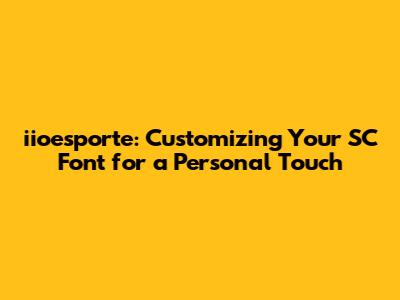
- Hierarchy: This refers to the way you organize your text to guide the reader's eye. Think of headings, subheadings, and body text. Different font styles and sizes create a visual hierarchy that makes content easy to digest.
- Readability: Can people easily read your text? Factors like font choice, size, and spacing all influence readability.
- Brand Consistency: If you're using iioesporte for your brand, your font choices should align with your brand's overall style.
- Explore the Available Fonts: Once you’re in the font settings, take a look at the fonts that are pre-installed. iioesporte often offers a range of fonts, from classic sans-serifs and serifs to more modern, unique options. Check how these fonts look by testing them on sample text. Consider your needs and brand to determine if you want to use them or get some custom ones.
- Choosing Your Fonts: The ideal font depends on your brand's goals. Do you want to project a professional image? A classic serif might be ideal. Are you trying to be seen as friendly and approachable? A clean sans-serif could do the trick. A bold, modern font can capture attention. When choosing, consider the font's readability at different sizes and its overall feel. Remember the rule: keep it consistent with your brand identity.
- Font Customization: Most platforms let you customize several aspects of your fonts. You may adjust:
- Font Size: Adjust the size to create a clear visual hierarchy.
- Font Weight: Try different weights (light, regular, bold) to add emphasis.
- Font Color: Make sure your colors are both readable and fit your brand.
- Spacing: Line spacing and letter spacing can impact readability.
- Preview and Test: Before you save your changes, always preview and test. See how the font looks on different parts of the platform and across multiple devices. A great font on your desktop may look terrible on a mobile device. Ensure that your design is readable and looks great everywhere.
- Readability Problems: A font might look great at one size but be difficult to read at another. Experiment with different sizes and weights to find what works best. Ensure enough contrast between the text and background for improved readability. Test your design on different devices.
- Font Conflicts: Sometimes, the platform's CSS or code conflicts with your font settings. Try using the browser's developer tools to inspect the elements and check for conflicting styles. Check the platform's support pages or forum for advice. Often the solution is simply to adjust the font settings a bit.
- Performance Issues: Complex fonts or too many font variations can slow down loading times. Be mindful of how many fonts you’re using and try to optimize your design. Optimize images and other media to balance the loading speeds.
- CSS Customization: If iioesporte offers CSS customization, you can fine-tune your font styles. This lets you add more control over the appearance of your fonts. Use CSS to change the font size, weight, color, and spacing. Use CSS for custom styling of specific text elements, like headings, paragraphs, and buttons. This level of control allows you to create highly tailored designs.
- Font Pairing: Choosing complementary fonts can dramatically improve your design. Use a font pairing tool to find combinations that match well. Ensure that the fonts work well together. Keep it simple and don't overwhelm the reader with too many font styles. Limit the number of fonts you use in your designs to maintain consistency.
- Responsive Design: Ensure your fonts look good on all devices. Use responsive design techniques to adjust font sizes and styles. Test your design on mobile, tablet, and desktop devices. Use relative units (like em or rem) for font sizes to make your design adaptable.